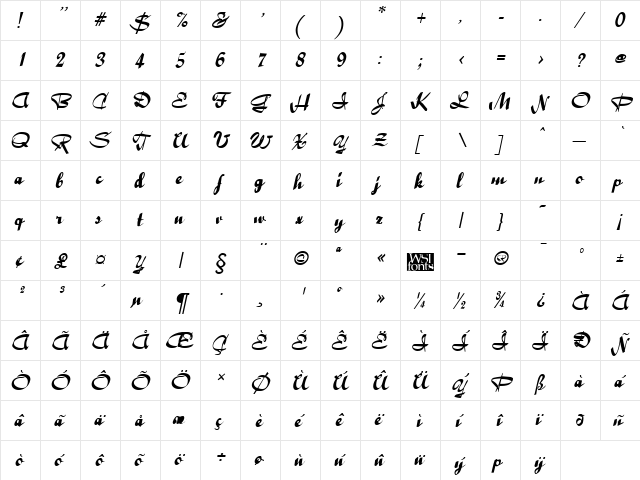
Bailey Italic
Design Context for Bailey Typeface
Bailey is a composed and adaptable typeface that performs quietly and consistently across a wide range of design contexts. The dynamic lean of this cut emphasises speed and emphasis in any layout.
Pro Tip: Use Bailey for emphasis, pull quotes, and subheadings where its slanted energy can add rhythm to the layout.